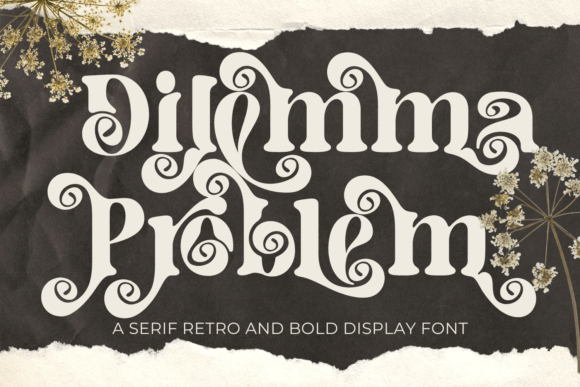
Unleash the funky charm of the 70s with Dilemma Problem, a daring serif font teeming with character. Bold and brimming with alternate glyphs, this font screams uniqueness. Its stylistic alternates and ligatures elevate your designs to new heights, making you stand out from the crowd with a retro vibe that's sure to turn heads.
With Dilemma Problem, you'll effortlessly create designs that exude groovy retro and classic charm. Picture logos that pop, book covers that intrigue, posters that captivate, and quotes that inspire – all infused with the timeless appeal of the past. Its versatility extends to product packaging, merchandise, social media posts, and more, making it a must-have for designers seeking a touch of vintage flair.
Embark on a creative journey with Dilemma Problem and let your imagination run wild. Embrace the nostalgia and infuse your designs with a touch of the past, captivating your audience with a font that speaks volumes. It's a bold choice for those who dare to be different, a font that commands attention and leaves a lasting impression.